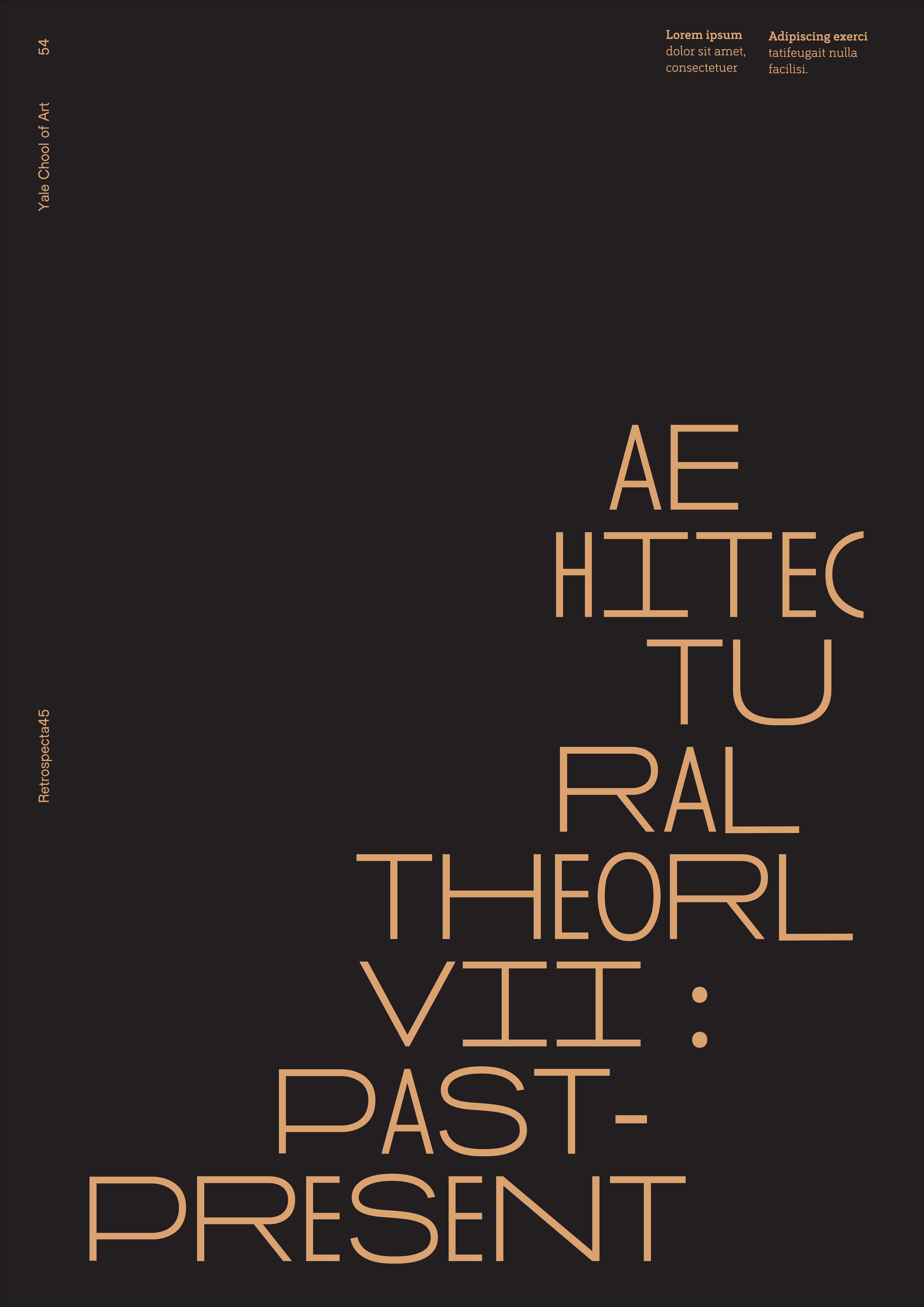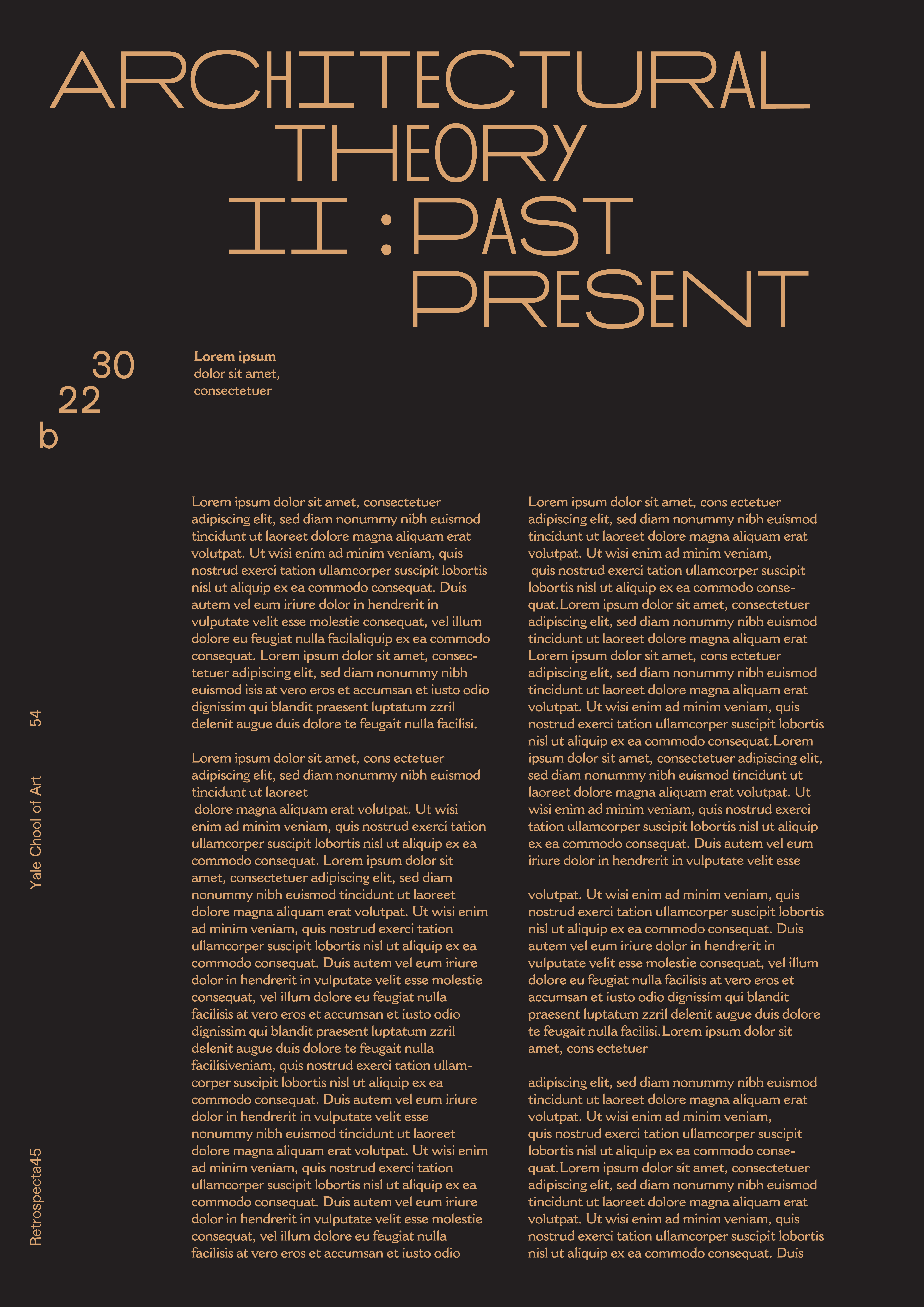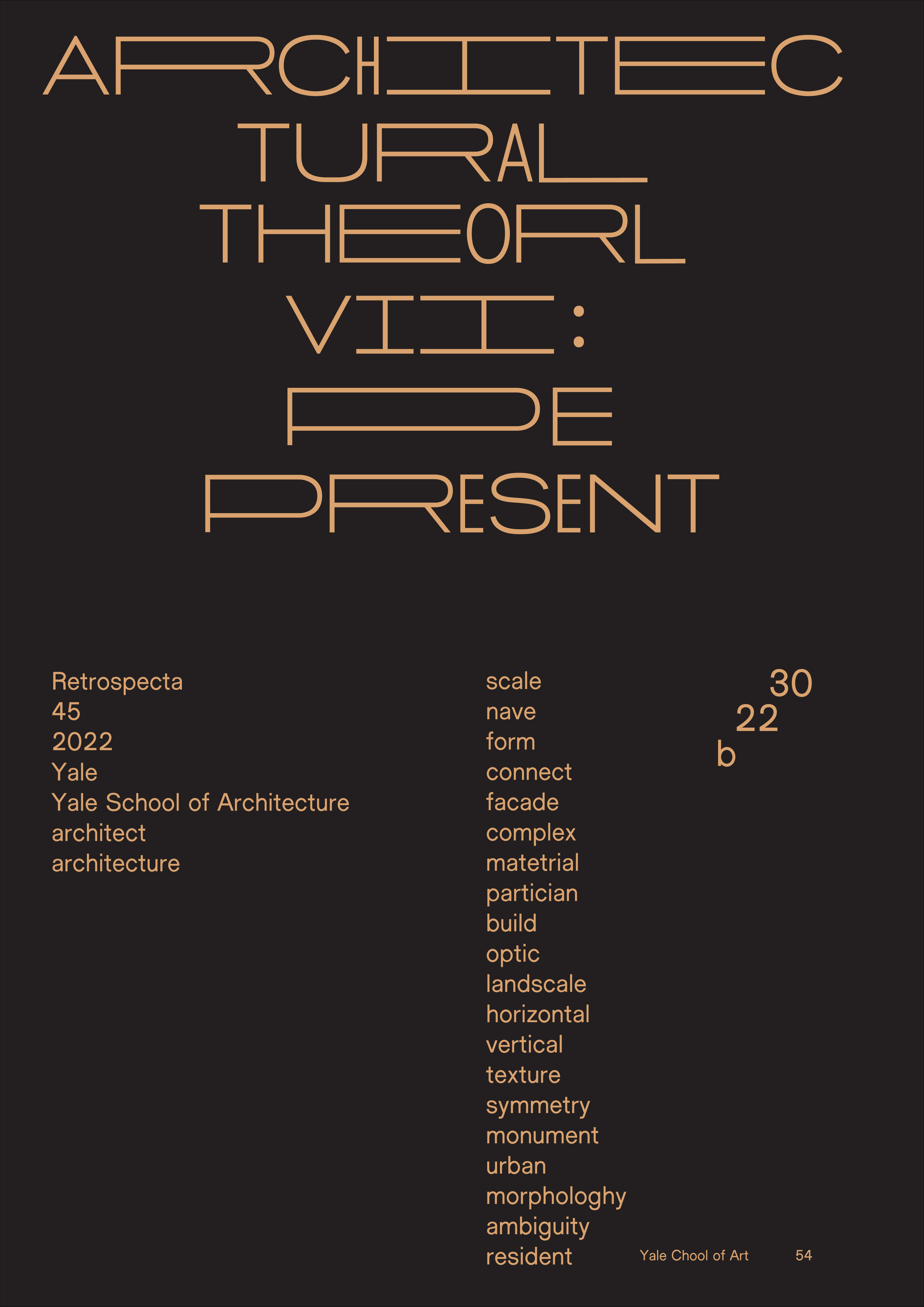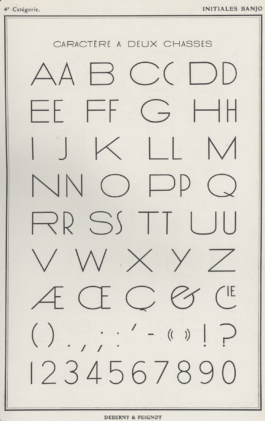
SUBBOOKKEEPER
Source material: Banjo (Maximilien Vox / Deberny & Peignot)
Q. Is there a word with 4 consecutive double letters?
A. Subbookkeeper is the only word in the English language with 4 consecutive double letters.
“There were several subbookkeepers working overtime to make up for the absent main bookkeeper.”
In fact, this is not an official word. I found this on the Urban Dictionary. This typeface has wide cases and narrow cases, with no lowercase. And to find a name that can put them side by side as much as possible, I found this word with the largest number of double consecutive letters and named it.
Banjo: Designed by Maximilien Vox for D&P in a single light style in 1930. Comes with narrow alternates for all letters (except 'IJWƌ'). No lowercase.
I was thinking of a typeface to use for a project with the Department of Architecture. I've got to know this lovely, slightly eccentric 1930s art deco style typeface from Nina's recommendation. It has a geometric feel, but it also has a pointy edge and elegant details of a narrow case (especially lowercase s). I liked the bloated feeling and modern and antique attitude.
This font, usually used in large display fonts on posters, has been made slightly thicker for common use, so I adjusted the pointed edges and exaggerated overshoots that make it look elegant. The most difficult but also interesting part was that I had to maintain the non-uniformity and the unique rhythm to bring out the weird and elegant details of it, but I had to get rid of its personality properly so that I could use it for what I wanted.
It has narrow cases and wide cases, and it can be used in a proper mix; and it naturally came to think about using it as a variable typeface when reinterpreted in modern times. During this semester, I applied the width variable typeface only to fonts such as E, B, R, P, D, and T that emphasize horizontal composition. And it's got all the narrow cases and some wide cases, and I've made additional wide cases that the original typeface didn't have, and I've modified the forms accordingly.